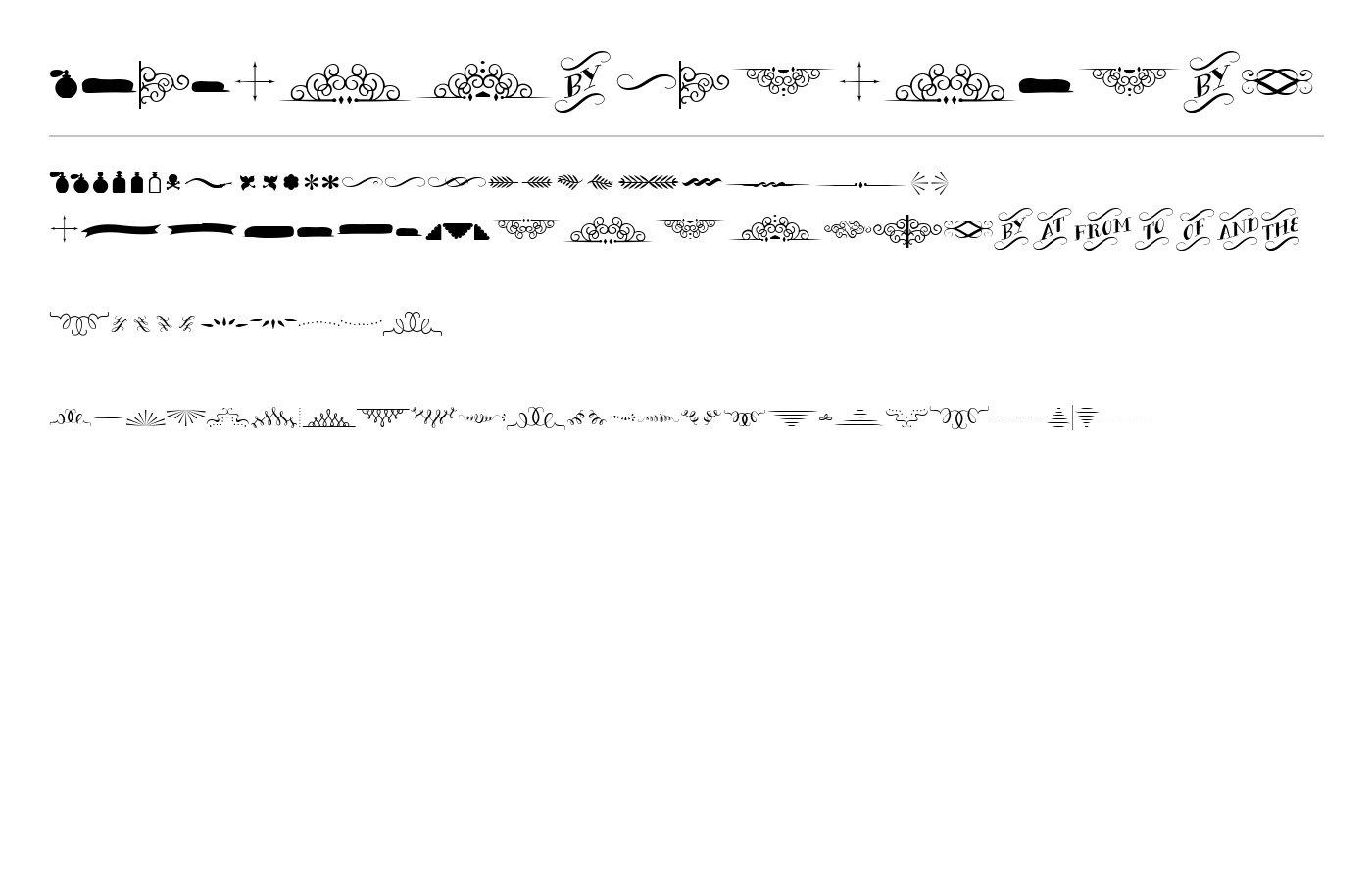
Bergamot Ornaments is a decorative font featuring intricate, vintage-inspired flourishes and embellishments that add a touch of elegance and sophistication. Perfect for enhancing invitations, luxury branding, and editorial designs, this font works best as ornamental accents or decorative dividers rather than for body text. Its delicate swirls and classic Victorian-style elements bring a sense of timeless charm and refined beauty to any creative project.
Bergamot Ornaments Font
About Bergamot Ornaments Font